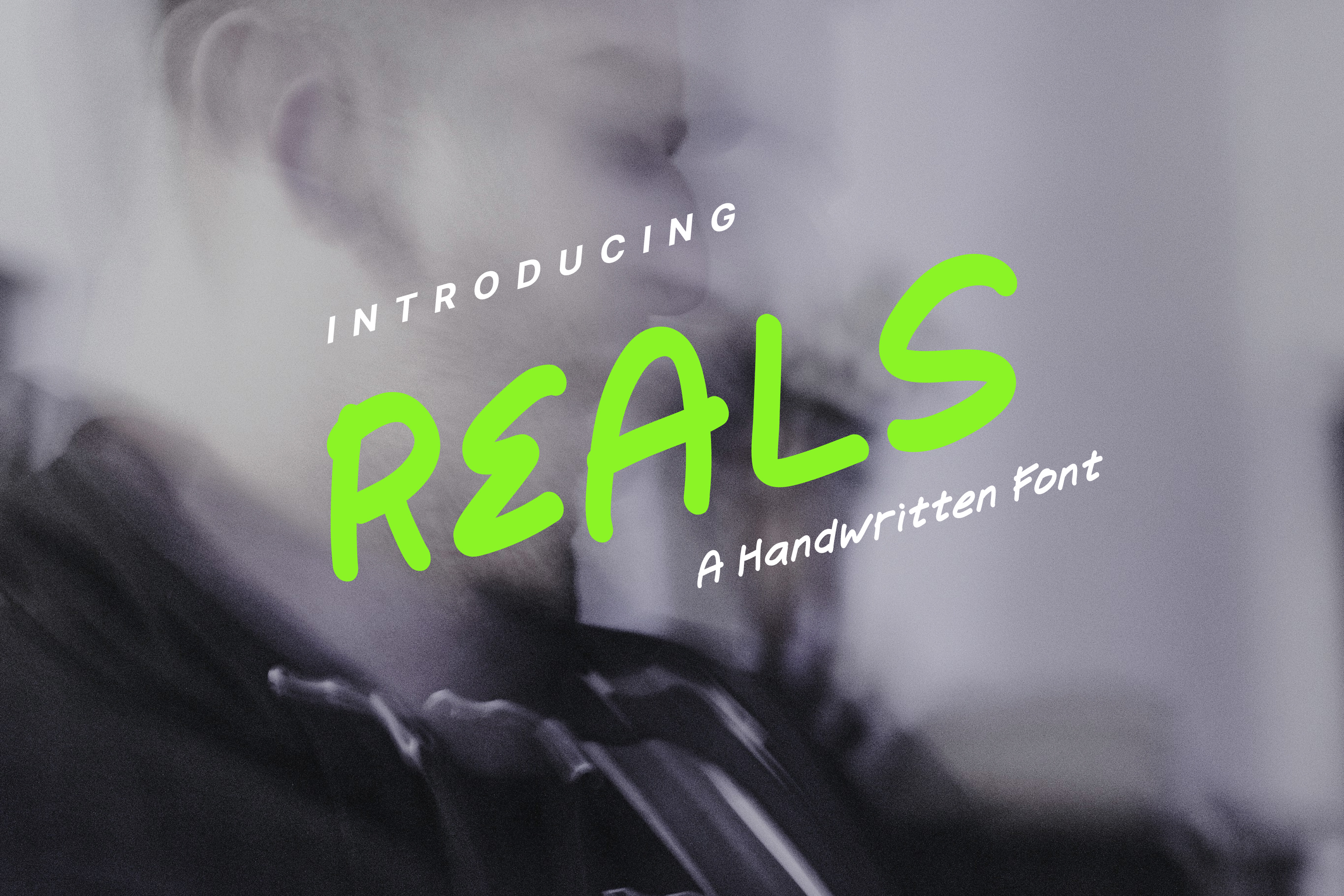
Reals - Handwritten Font
Reals is a bold handwritten font that brings out the raw, unfiltered energy of street culture and self-expression. With its freestyle marker strokes and imperfect rhythm, Reals celebrates authenticity in a world that’s too polished. Perfect for statement posters, album covers, coffee branding, and designs that speak loudly without trying too hard.
It’s the kind of font that feels alive, rebellious yet honest, confident yet human. Let Reals give your words that unapologetic, real vibe they deserve.